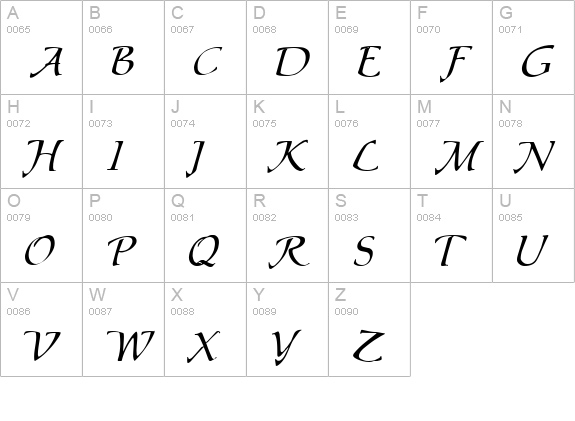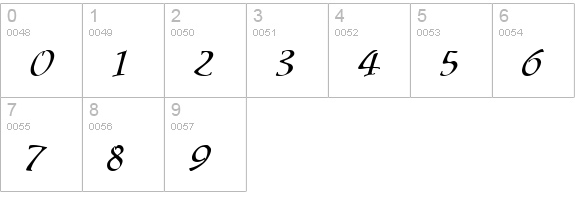
Paulper Regular Font Details
Paulper Regular is the standard, neutral variant in the Paulper typeface family \xE2\x80\x94 well suited to general body text, paragraphs, and standard typographic work.
Introducing Paulper Regular font, a stunning typeface that exudes elegance and versatility. With its clean lines and balanced proportions, this font is perfect for a wide range of design projects, from logos and branding to headlines and body text. Paulper Regular font is meticulously crafted to provide maximum legibility and readability, ensuring that your message is conveyed with clarity and impact. Whether used in print or digital media, this font will captivate your audience and leave a lasting impression. But what makes Paulper Regular font truly special is that it is free! That's right, you can download this remarkable font for absolutely no cost. FontsMarket.com is proud to offer this font freely available for download, allowing designers and creatives to access high-quality typography without breaking the bank. So why wait? Elevate your designs with the timeless beauty of Paulper Regular font. Download it today at FontsMarket.com and unlock a world of possibilities for your next project.